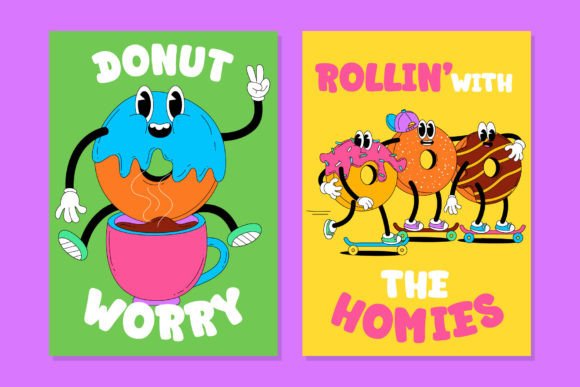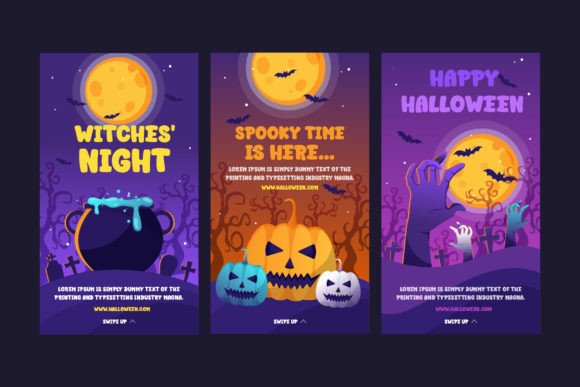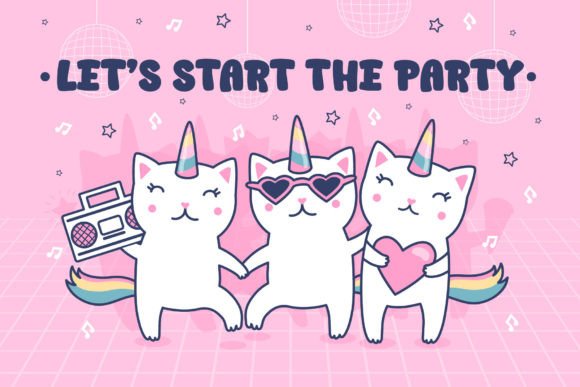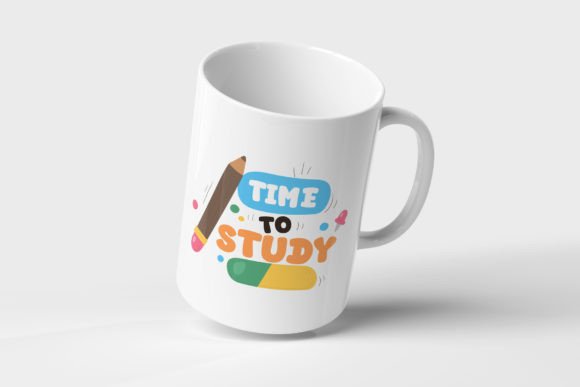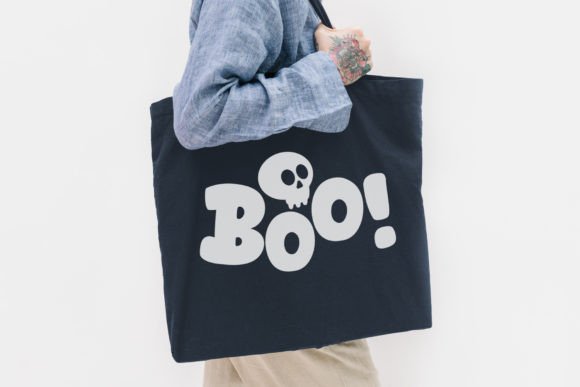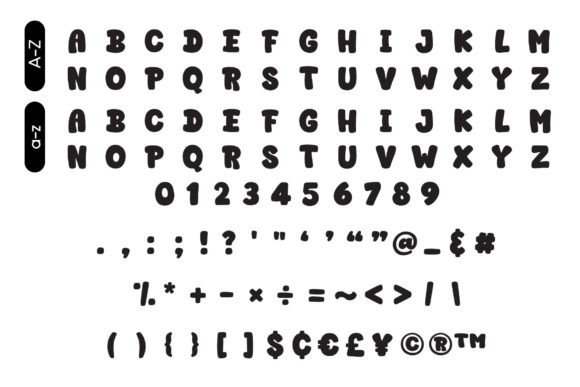
Introducing Fox Diligent Font: The Ultimate Display Font for Creative Designs
Are you tired of using the same old fonts for your designs? Look no further! Fox Diligent Font is here to revolutionize your creative projects with its bold, playful, and energetic vibe. This stunning display font is perfect for designers and crafters who want to add a captivating touch to their work.
The Main Features of Fox Diligent Font
So, what makes Fox Diligent Font stand out from the rest? Its main feature is its vibrant and expressive design, which allows you to create attention-grabbing headlines, t-shirt typography, banners, product labels, and more. With its versatility and eye-catching presence, this font is sure to elevate your designs to the next level.
Fox Diligent Font is a versatile font that can be used for a wide range of design projects. Whether you’re working on:
- Headlines and titles that need to make a bold statement
- T-shirt typography and apparel designs
- Banners and posters that require attention-grabbing text
- Product labels and packaging designs that need to stand out
- Social media graphics and promotional materials
This font is sure to add a touch of energy and playfulness to your work.
Why Choose Fox Diligent Font?
With so many fonts available, why choose Fox Diligent Font? Here are just a few reasons:
- Unique and eye-catching design: Fox Diligent Font has a distinctive and captivating presence that will set your designs apart from the rest.
- Versatile and adaptable: This font can be used for a wide range of design projects, from bold headlines to social media graphics.
- Easy to read and understand: Despite its bold and playful design, Fox Diligent Font is easy to read and understand, making it perfect for designs that require clear communication.
Tips for Using Fox Diligent Font
To get the most out of Fox Diligent Font, here are a few tips:
- Use it sparingly: Fox Diligent Font is a bold and attention-grabbing font, so use it sparingly to avoid overwhelming your designs.
- Pair it with complementary fonts: Pair Fox Diligent Font with complementary fonts to create a cohesive and visually appealing design.
- Experiment with different colors and textures: Fox Diligent Font looks great in a variety of colors and textures, so don’t be afraid to experiment and find the perfect combination for your design.
In conclusion, Fox Diligent Font is a bold, playful, and energetic display font that’s perfect for designers and crafters who want to add a captivating touch to their work. With its vibrant and expressive design, versatility, and eye-catching presence, this font is sure to elevate your designs to the next level. So why wait? Download Fox Diligent Font today and start creating stunning designs that grab attention!
| Font Style | Bold, Playful, Display Font |
| Use Cases | Headlines, T-shirt Typography, Banners, Product Labels, Social Media Graphics |
| Key Benefits | Attention-grabbing, Versatile, Easy to Read |